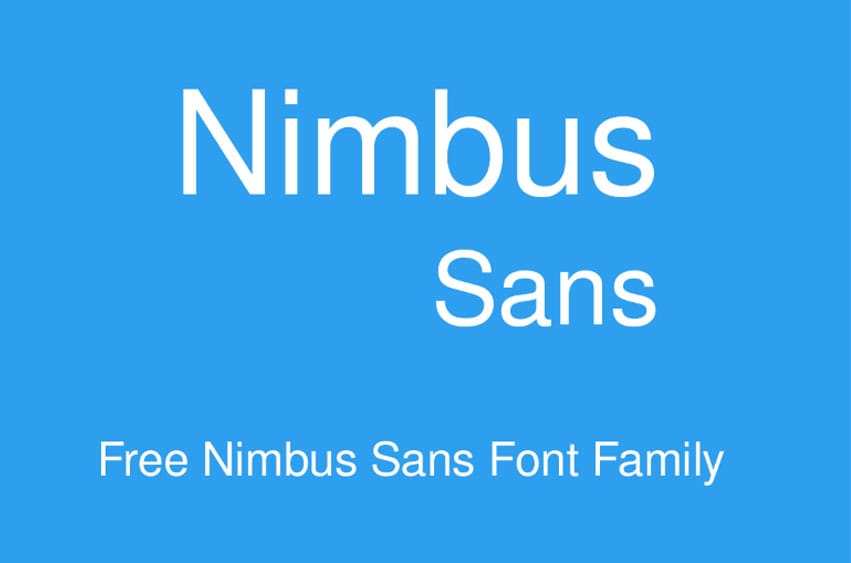
Nimbus Sans Font created by URW++ under GPL have just been released into Nimbus collection. Nimbus Roman No 9 L, Sans L and Mono are metrically compatible with Times.
Helvetica and Courier fonts and support all WGL4 characters (while W1G lacks an interrobang as well as certain superscript and subscript symbols).